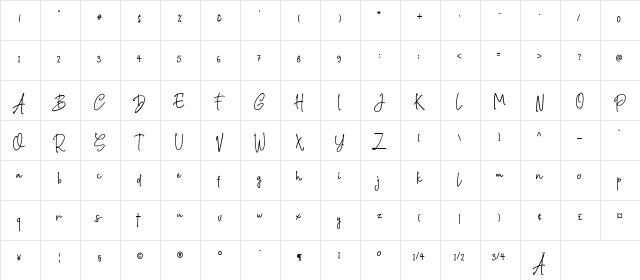
Prily Prily Font Preview
Prily Prily
Prily Prily Font Details
| Style | Prily |
| Foundry | Typefar.std |
| Designer | Farul Arjianto |
Design Context for Prily Typeface
Prily is a composed and adaptable typeface that performs quietly and consistently across a wide range of design contexts.